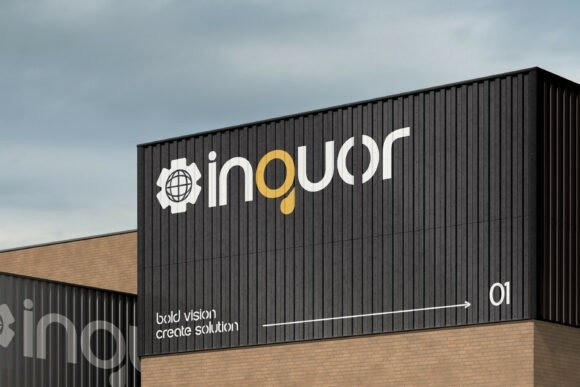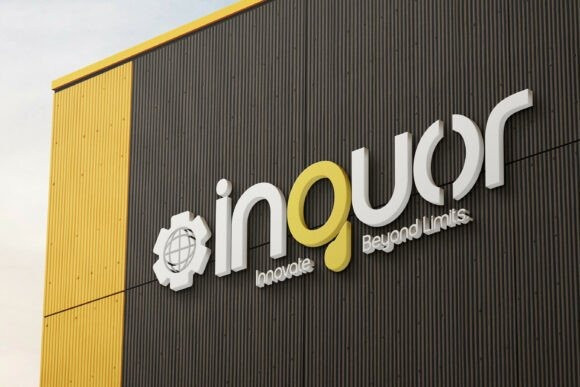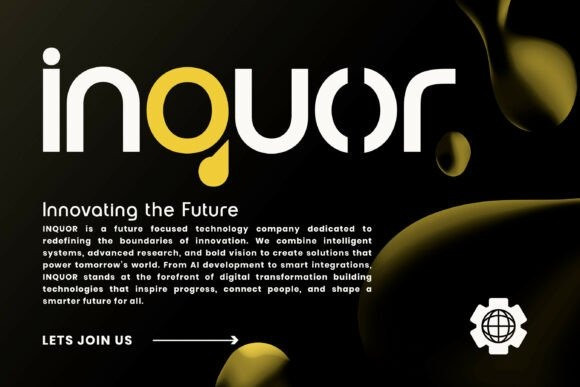
Inquor Font
Inquor Font is a modern sans serif typeface designed with a clean structure, geometric balance, and a strong contemporary presence. Its sleek letterforms and minimal details deliver a professional, futuristic, and highly versatile aesthetic. Perfect for branding, corporate identities, technology projects, logos, UI/UX design, websites, presentations, and editorial layouts, Inquor offers clarity and confidence in every application.